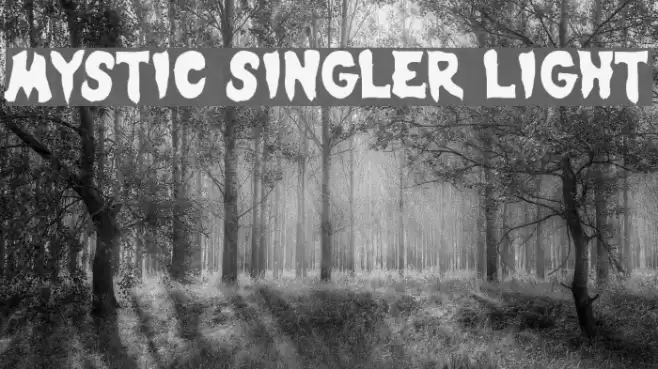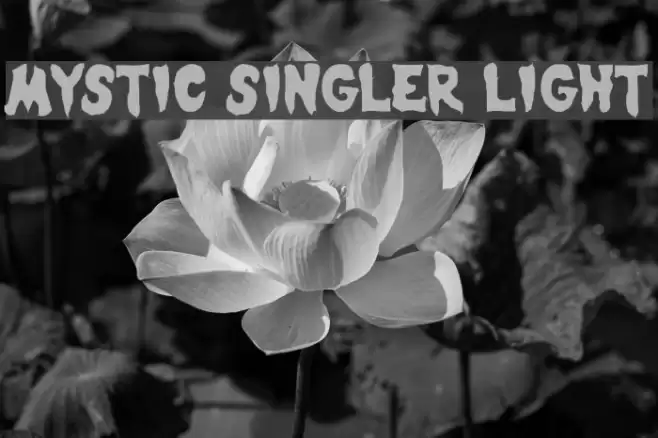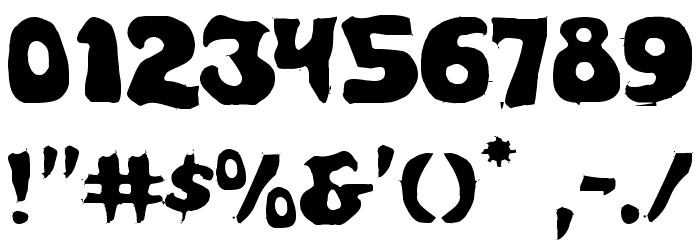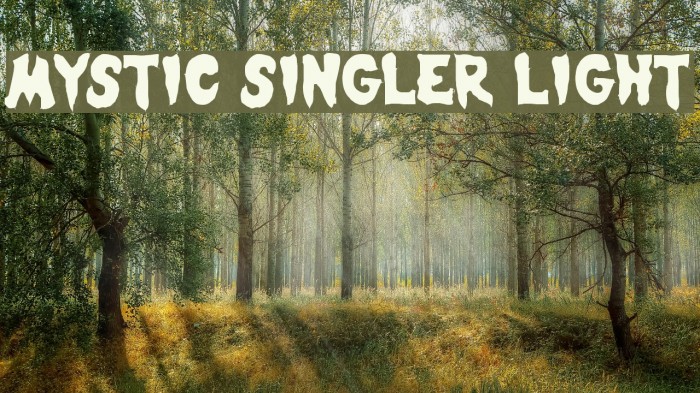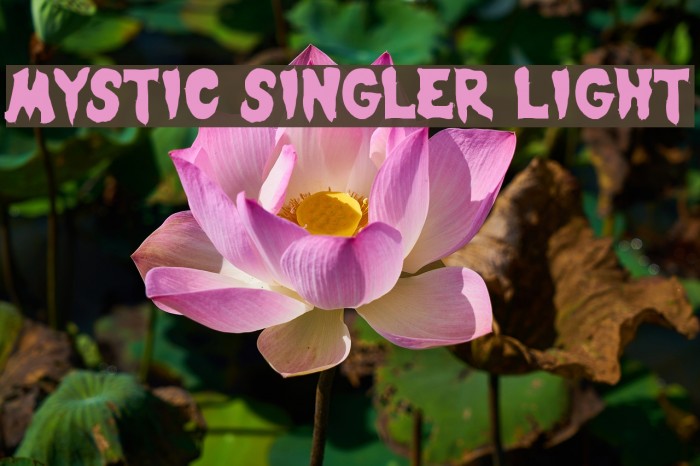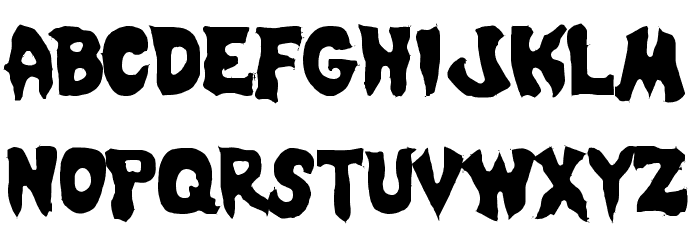
Mystic Singler Light Font
Mystic Singler Light Description
This font features a bold and dramatic style with a hand-drawn appearance. The characters have an irregular, organic shape, giving them a unique and artistic flair. The strokes are thick and uneven, creating a sense of movement and energy. The font's design is reminiscent of brush strokes, with varying widths and a slightly rough texture. It conveys a sense of creativity and spontaneity, making it suitable for projects that require a bold and expressive look. The uppercase and lowercase letters maintain a consistent style, while the numbers and special characters complement the overall design with their dynamic forms.
A bold, hand-drawn font with an artistic and dynamic style from Horror fonts.
- Proposed Projects: Ideal for posters, album covers, artistic branding, and creative advertisements.
- Overall Style: Artistic, Expressive